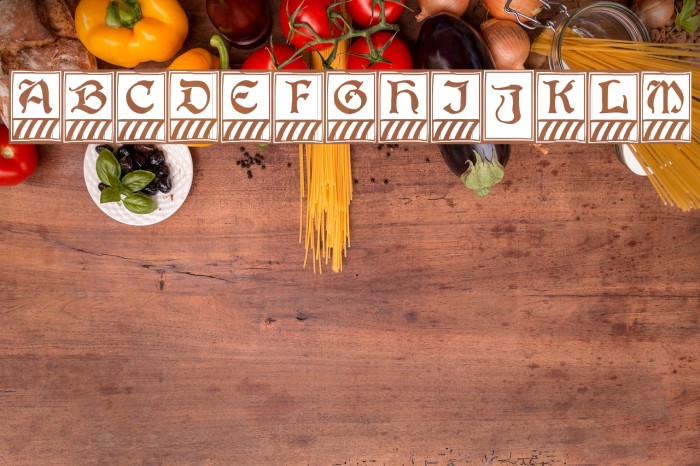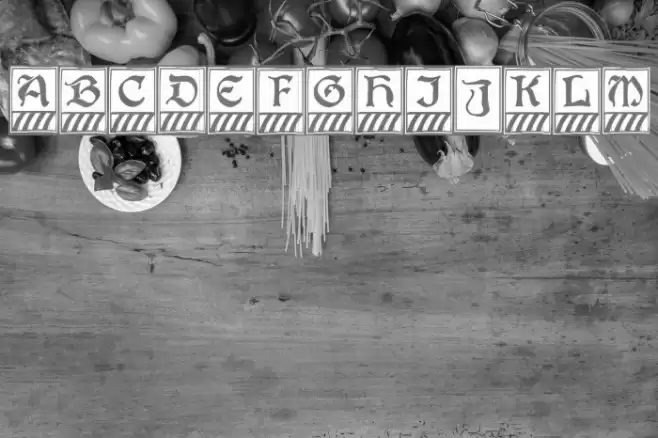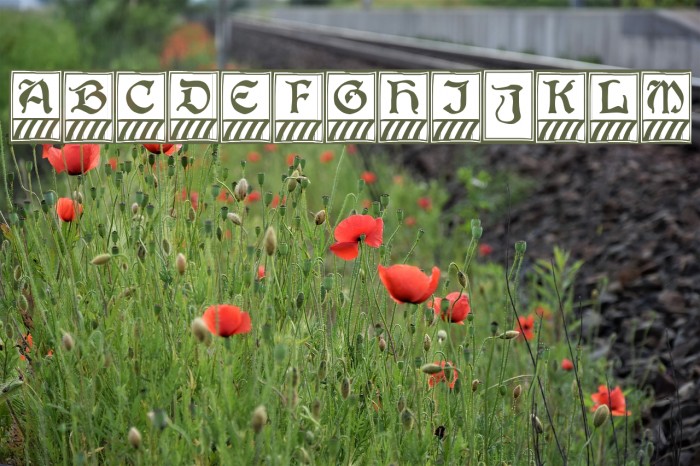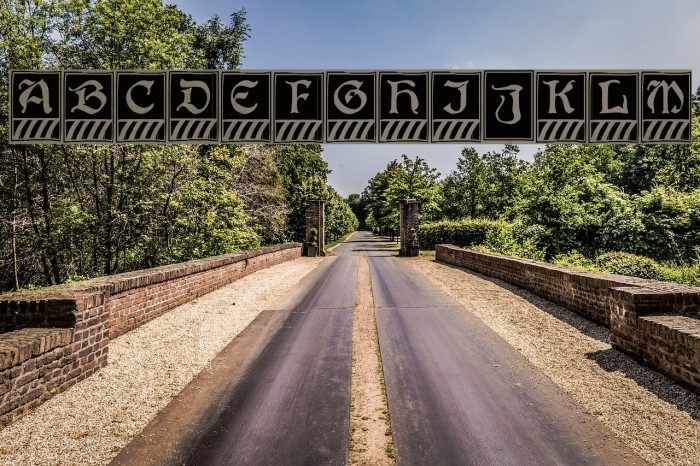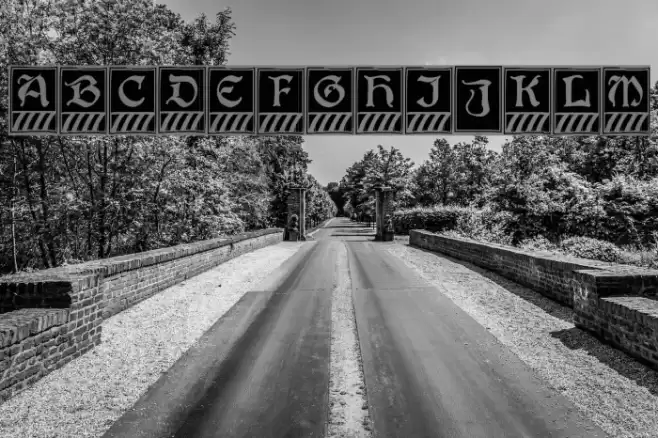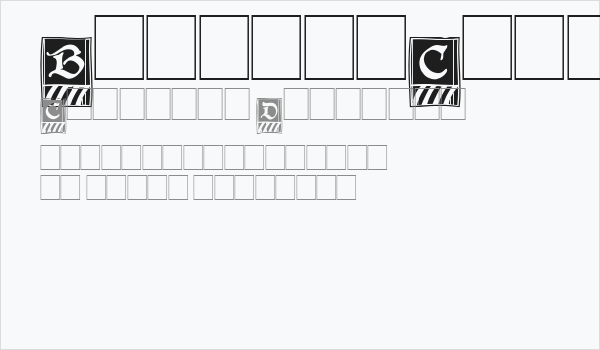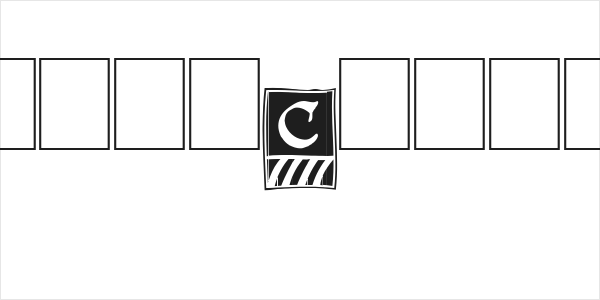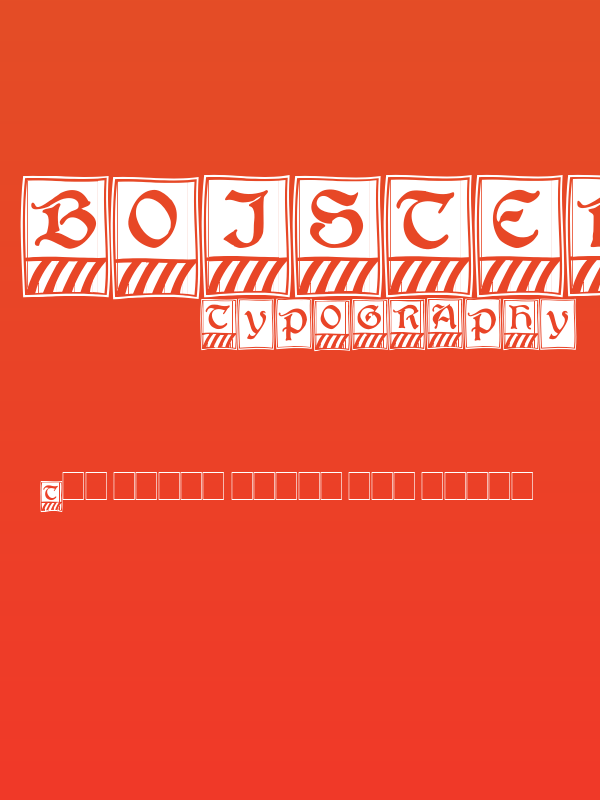
BoisterCapitals Font
BoisterCapitals Description
This font features a bold and dramatic style with a strong blackletter influence. Each letter is enclosed in a square with a striped pattern at the bottom, creating a striking and unique appearance. The characters are highly decorative, with intricate serifs and flourishes that give them a medieval and gothic feel. The uppercase letters are the primary focus, with no lowercase or numerical characters present. The overall design is highly ornamental, making it ideal for projects that require a touch of historical or fantasy-themed elegance.
| Proposed Projects | Ideal for fantasy-themed posters, medieval event invitations, or historical book covers. |